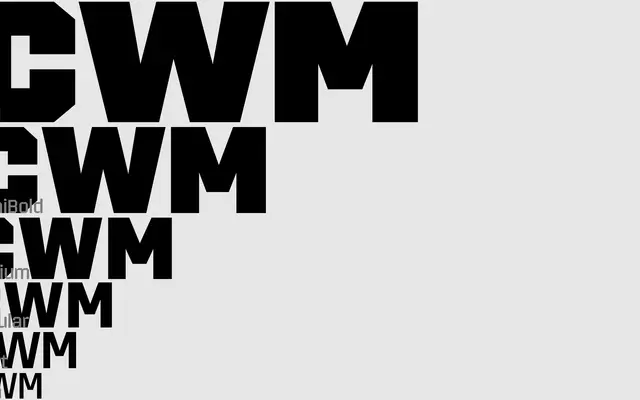
CWM
A2-Type · 2008
Originally designed in 2008 as the principal typeface for the V&A Museum's 'Cold War Modern' exhibition catalogue, drawing on mid-century poster and ephemera typography.
Commissioned for the V&A's 'Cold War Modern: Design 1945–1970' publication, the typeface takes its cues from the graphic language of that era: restrained geometric forms with a modernist, institutional character. It has since been expanded from its original weight to a family of six, running from Thin to Bold. Works well in catalogue and editorial contexts where a controlled, period-informed sans is needed.
CWM draws on Cold War era poster typography and printed ephemera, resulting in a geometric sans with the restrained, rational character typical of mid-century European modernism.